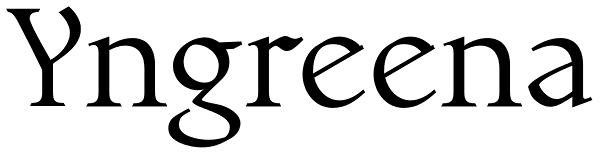
Yngreena
Yngreena is a serifed typeface with calligraphic origins. In updating it in 2011, I began to add alternative letters and reached the point where it made sense to create an alternative family of faces rather than include all the alternatives as part...